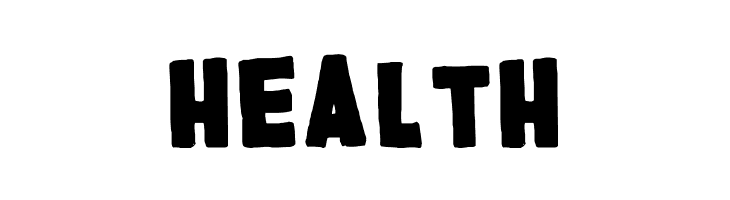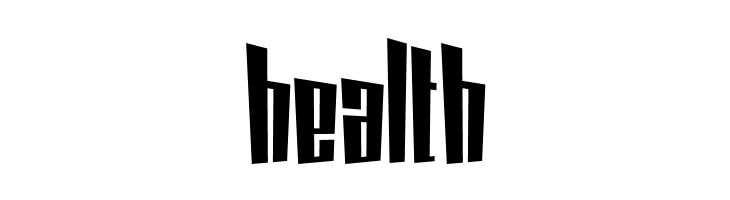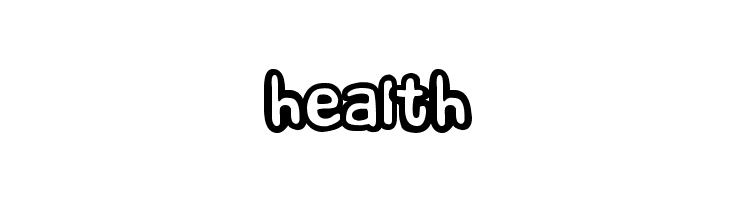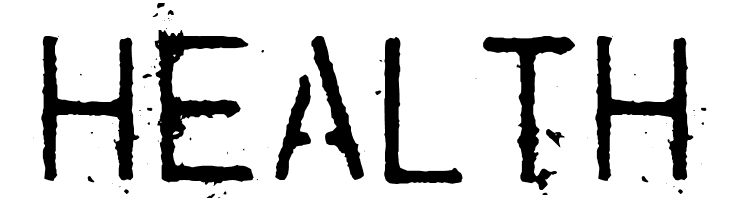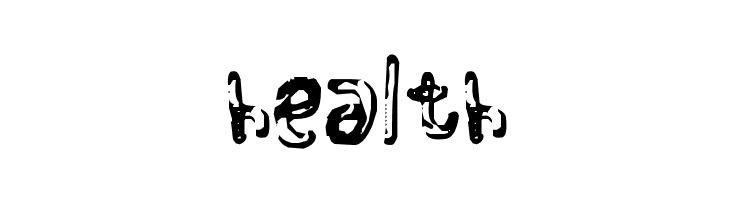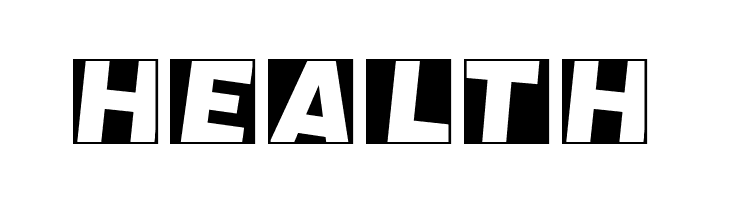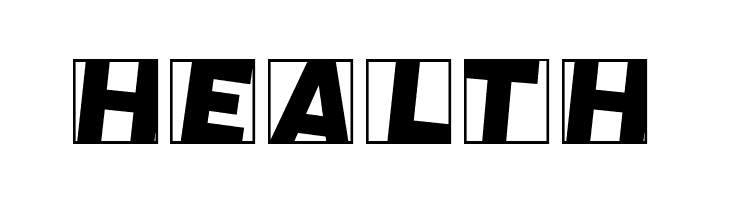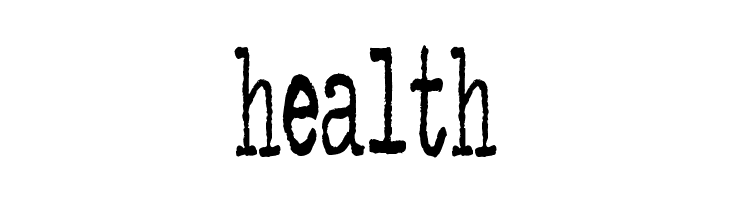
A bold, decorative font with a halftone texture and modern style.
( Fonts by Daniel Gauthier )
A bold, flame-inspired decorative font with dynamic, angular characters.
( Fonts by Daniel Gauthier )
A bold, flame-inspired decorative font with sharp, dynamic characters.
( Fonts by www.junkohanhero.com )
A bold, ransom-note style font with high contrast and eclectic character design.
( Fonts by Fabrika De Typos - Marcio Hirosse - fabrikadetypos.blogspot.com )
A bold, distressed font with a hand-painted, rugged appearance.
A playful, bold font with jagged, hand-drawn outlines.
A rugged, textured font with a hand-crafted, adventurous feel.
( Fonts by Nate Piekos - www.blambot.com )
A playful, bold, hand-drawn font with a whimsical and organic feel.
( Fonts by Levi Halmos )
A bold, adventurous font with a pirate-themed, decorative style.
( Fonts by www.floodfonts.com )
A bold, adventurous font with a rugged, hand-drawn appearance.
( Fonts by www.floodfonts.com )
A bold, adventurous font with a nautical theme, featuring sharp edges and flowing curves.
( Fonts by www.floodfonts.com )
A bold, decorative font with a pirate-themed, adventurous style.
( Fonts by www.floodfonts.com )
A distressed, eclectic font with a cut-out, rebellious style.
( Fonts by Matthew Austin Petty - www.disturbed.com )
A bold, distressed font with a rugged, vintage style.
( Fonts by www.vicfieger.com )
A distressed, grungy font with chaotic, worn letterforms.
( Fonts by Salvo Nicolosi - ficod.deviantart.com )
A bold, geometric font with a modern and decorative style.
( Fonts by Dave Kellam - Brian Stuparyk - www.eightface.com )
A playful, bold font with rounded, bubbly characters ideal for fun and creative projects.
( Fonts by Dave Kellam - Brian Stuparyk - www.eightface.com )
A bold, playful font with rounded, bubble-like characters and a cartoonish style.
( Fonts by Thomas O`Callaghan - www.tomocallaghan.co.uk )
A playful, textured font with a handcrafted, clay-like appearance.
A bold, three-dimensional serif font with a striking and modern design.
( Fonts by Rich Gast - www.greywolfwebworks.com Commercial Fonts Font )
A decorative font with spoked designs, ideal for retro-themed projects.
( Fonts by Utopiafonts )
A playful, bold font with irregular, hand-molded shapes.
( Fonts by Furdzville - Brian Powers )
A bold, playful font with a 3D effect and cartoonish style.
( Fonts by Rick Mueller )
A bold, decorative font with a vintage flair and strong, condensed characters.
( Fonts by Rich Gast - www.greywolfwebworks.com Commercial Fonts Font )
A bold, vintage-style serif font with dramatic strokes and strong presence.